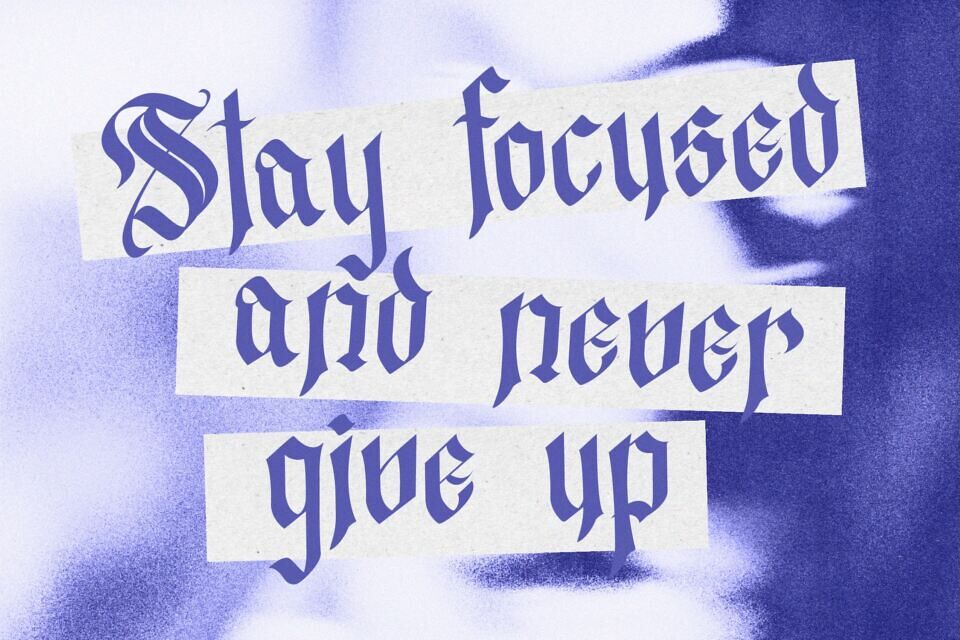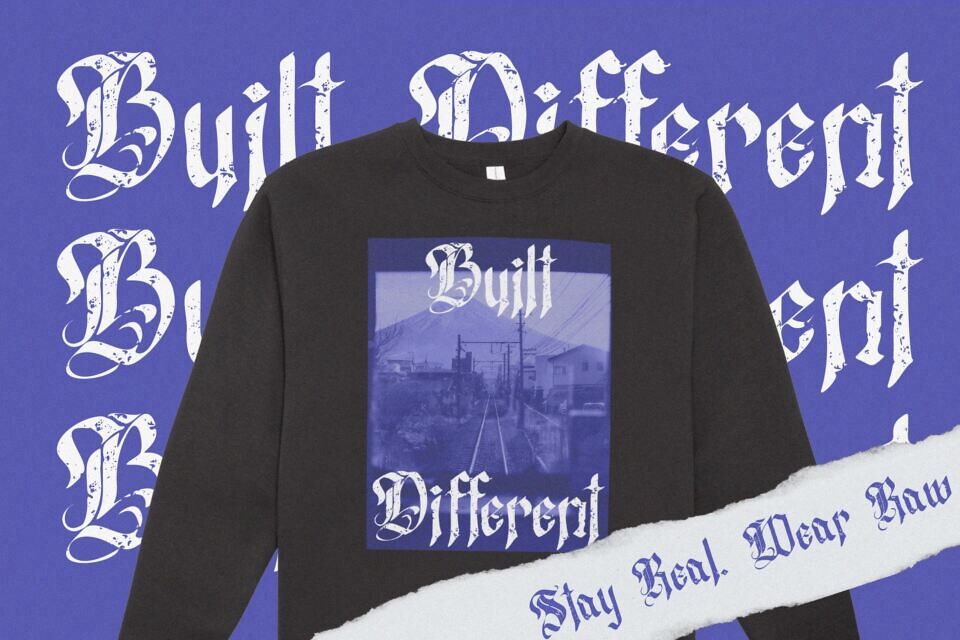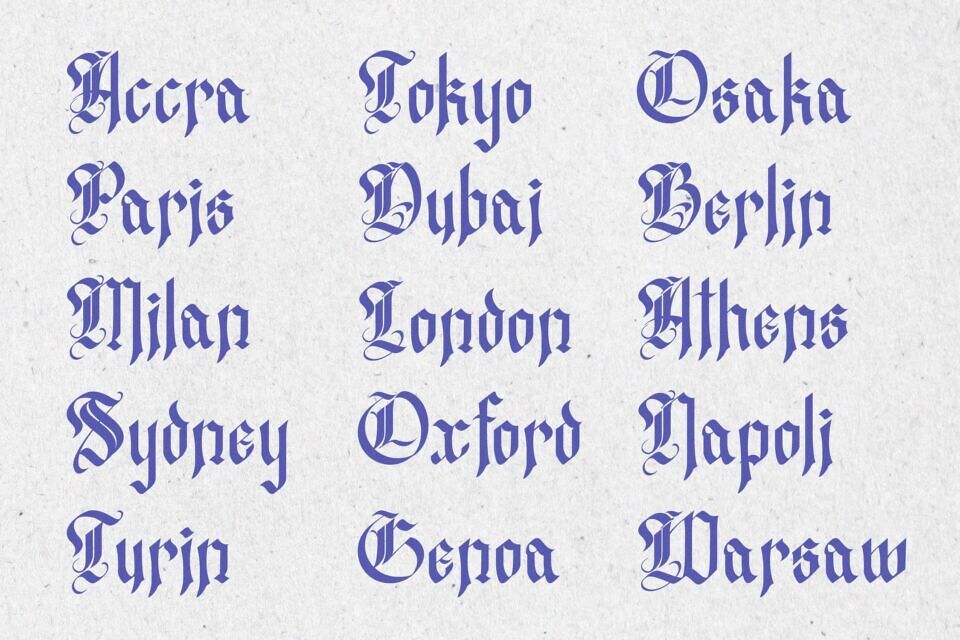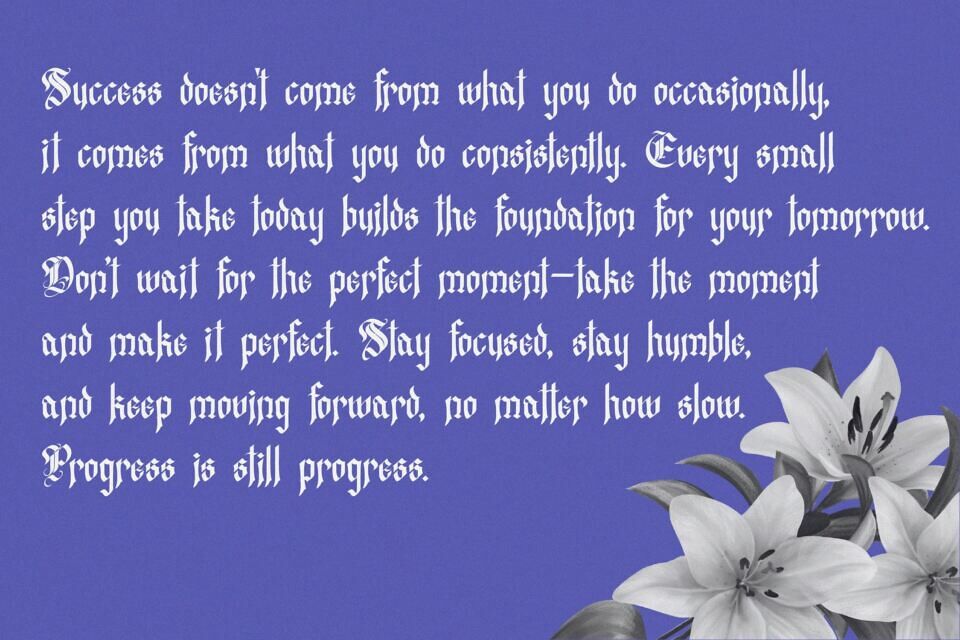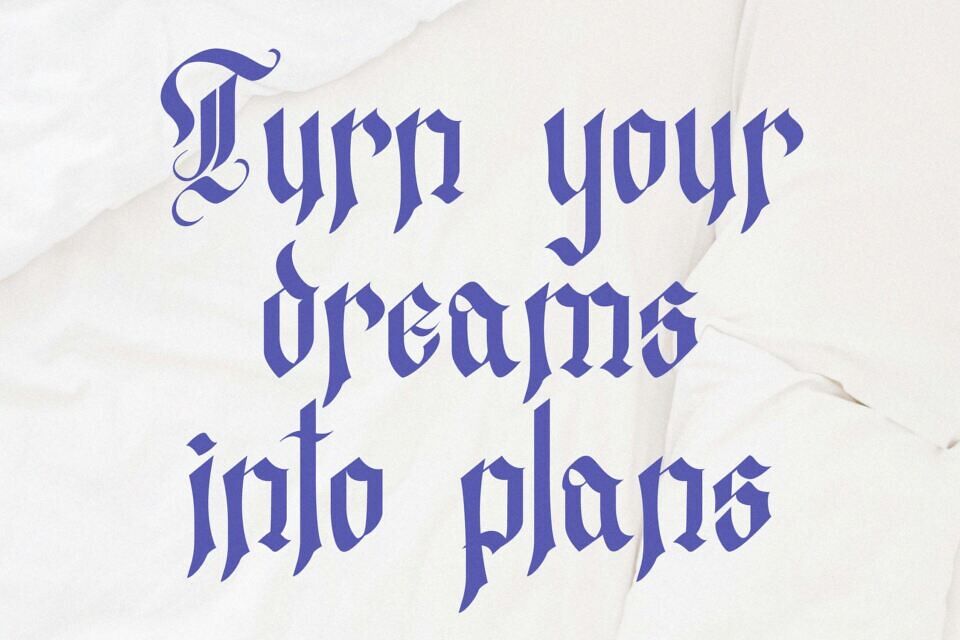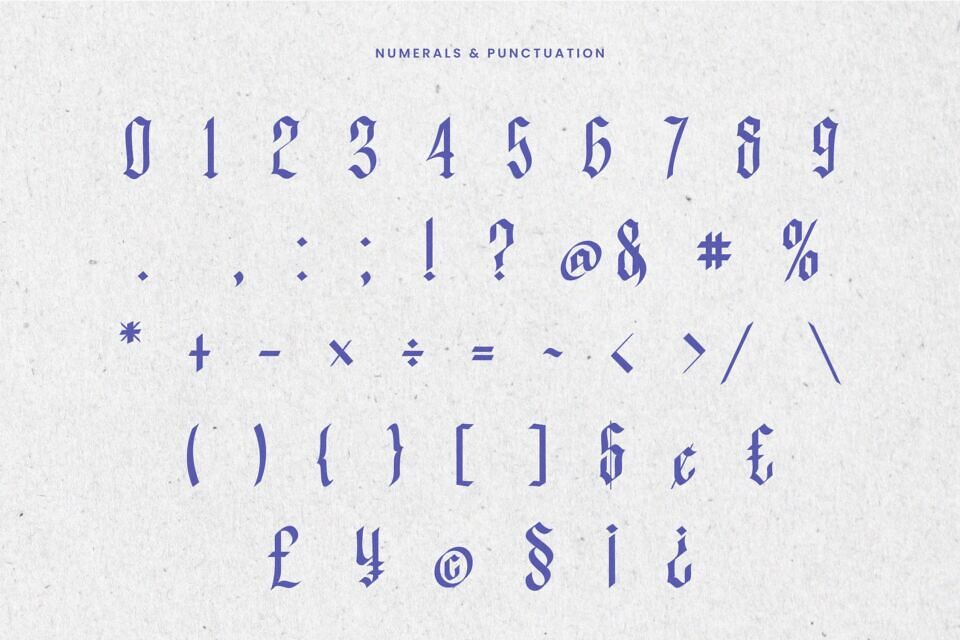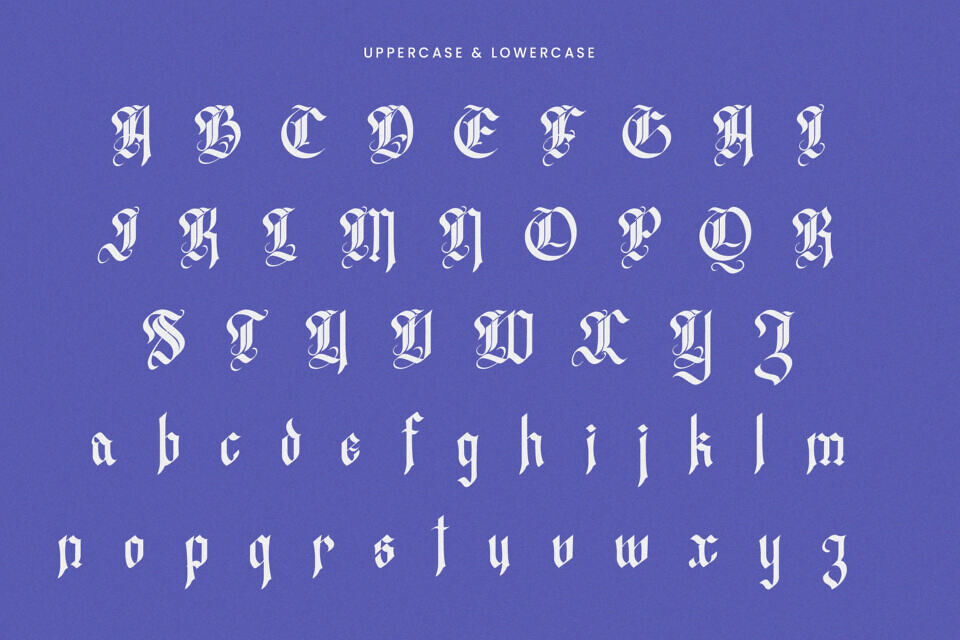
Westend Ridge is a authentic blackletter font inspired by the elegance of classic typography and the timeless charm of Old English design. With its sharp details, strong character, and vintage appeal, this typeface brings a historical essence into modern design.
Each letter is carefully crafted to echo the spirit of medieval scripts, traditional signage, and vintage print layouts — while still feeling fresh and contemporary. Westend Ridge perfectly balances ornate textures with readability, making it ideal for designers who want to make a bold visual statement.
This font works beautifully across various creative projects: from gothic band posters, liquor labels, barbershop branding, editorial headlines, vintage logos, to apparel designs and more.